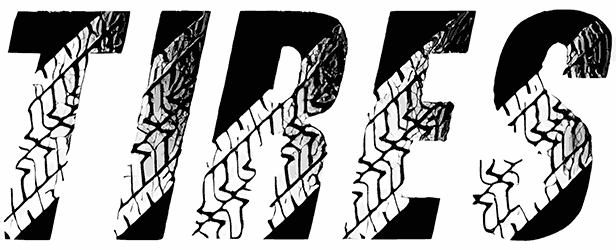
Tires Font
If you are really passionate about having a monogram font that comes with a unique style and boosts the feeling of grunge, eerie, tenderness, or drama in your artwork, we have a special offer, such as Tires, for you.
Due to its unique style, it can also be utilized as an all-caps truck font for posters, book covers, product packaging, stickers, or banner ads. Aside from the lack of numbers, it is worth trying in graphic projects.